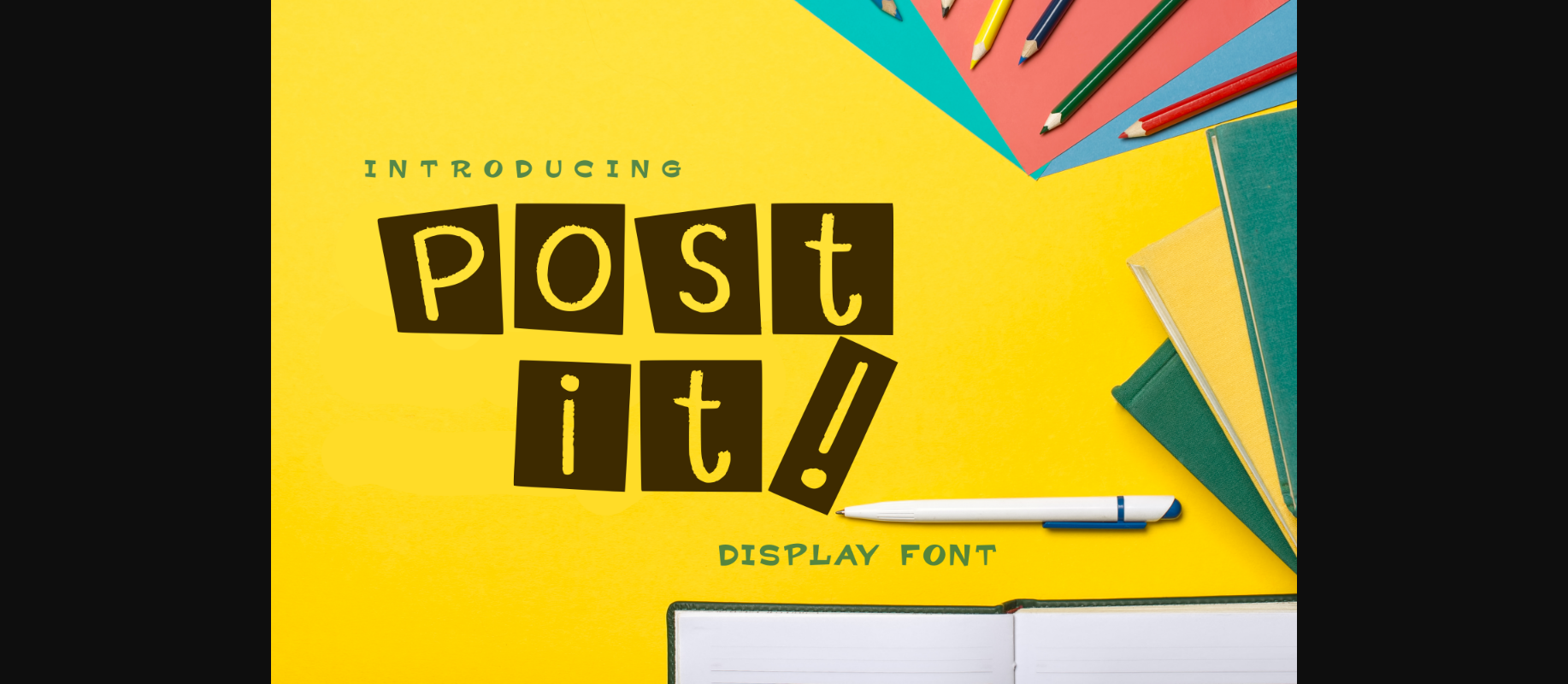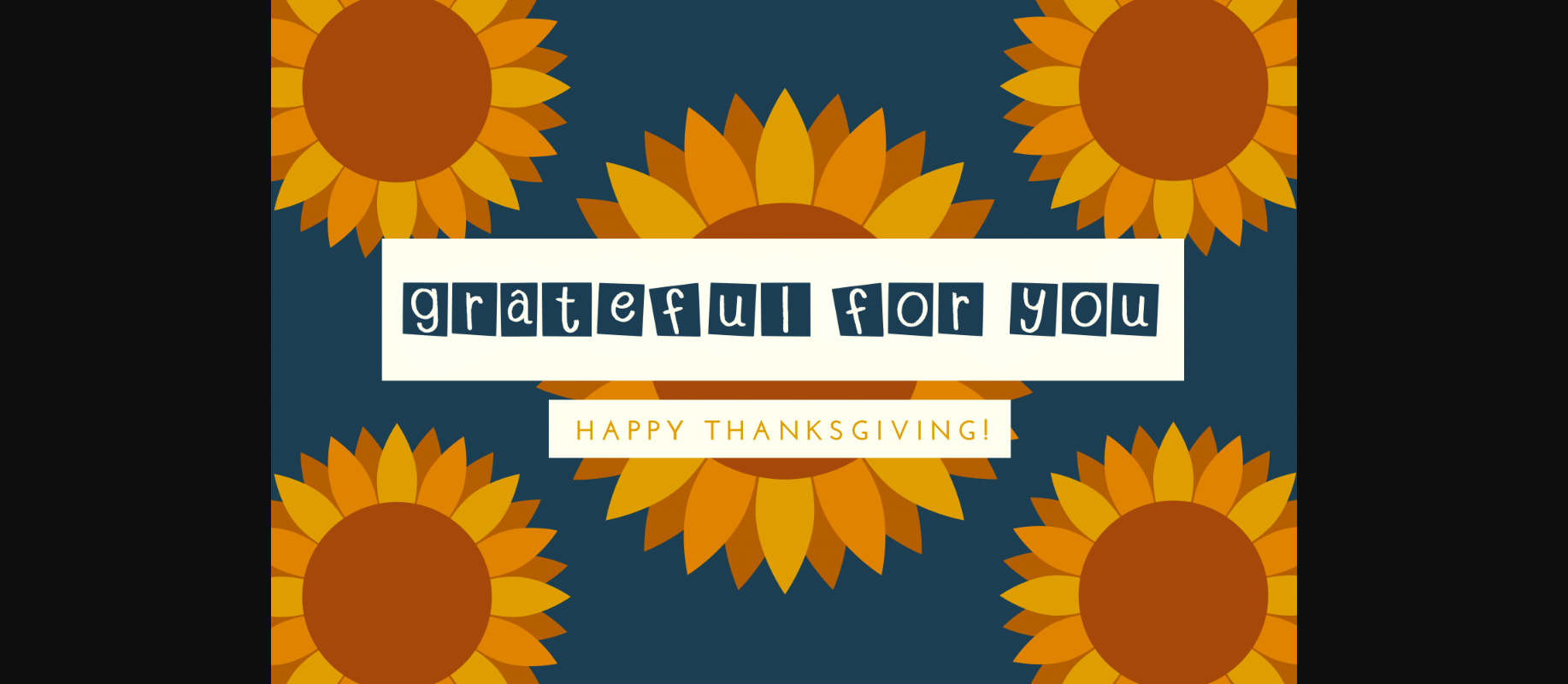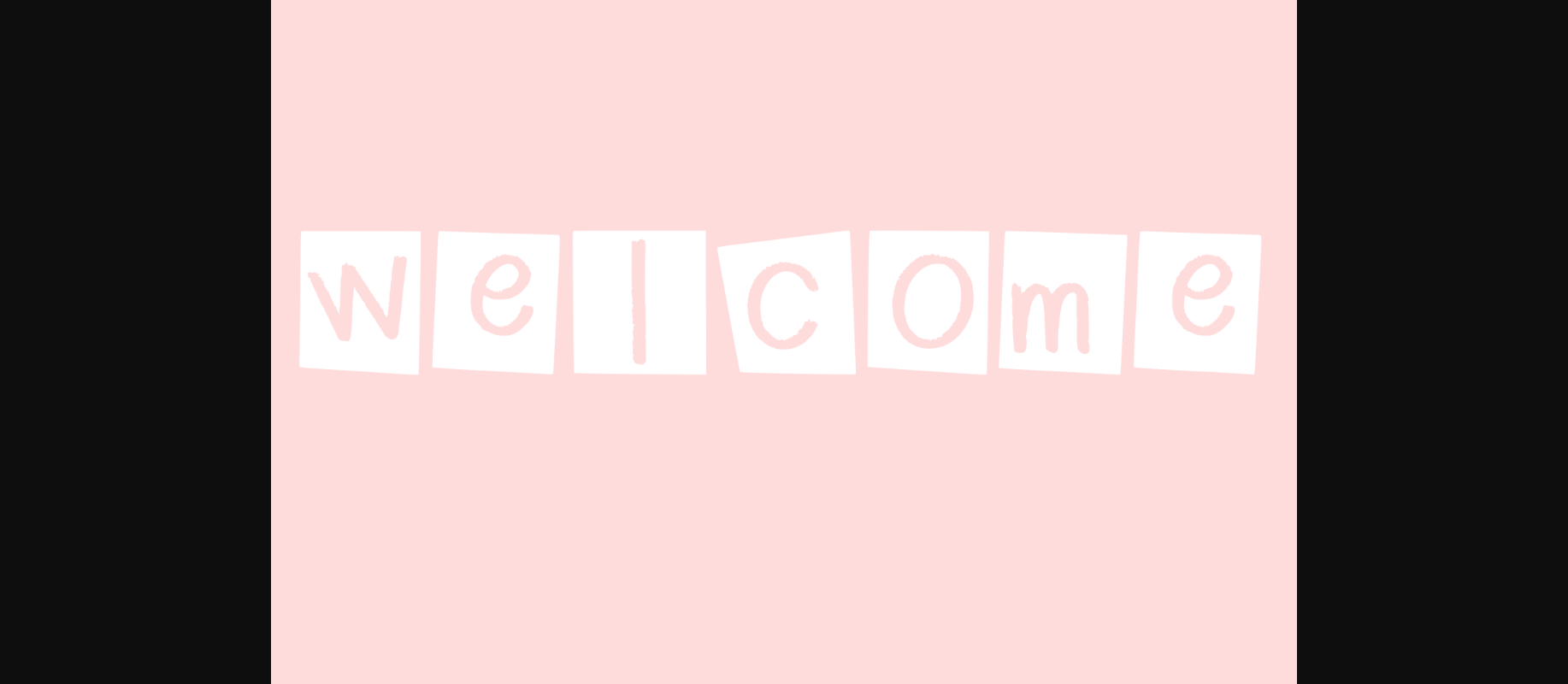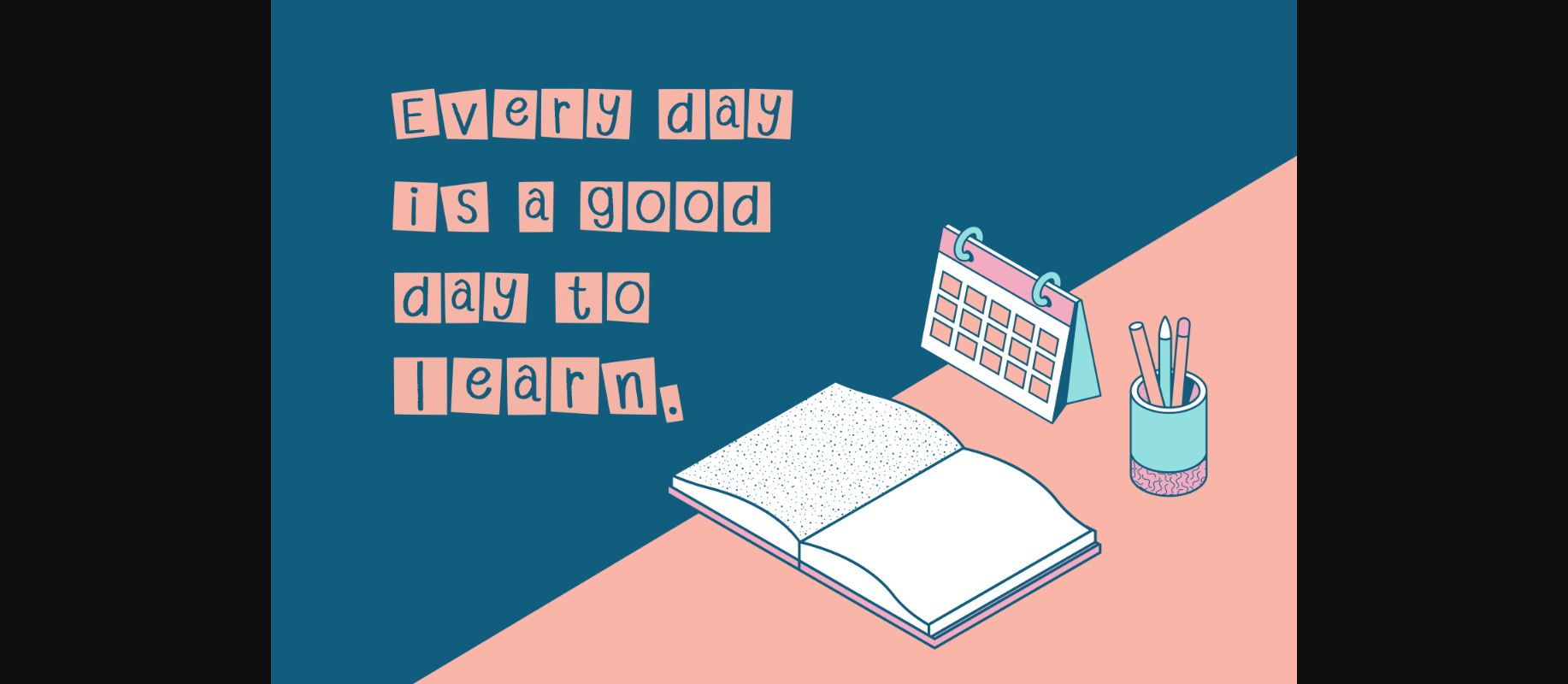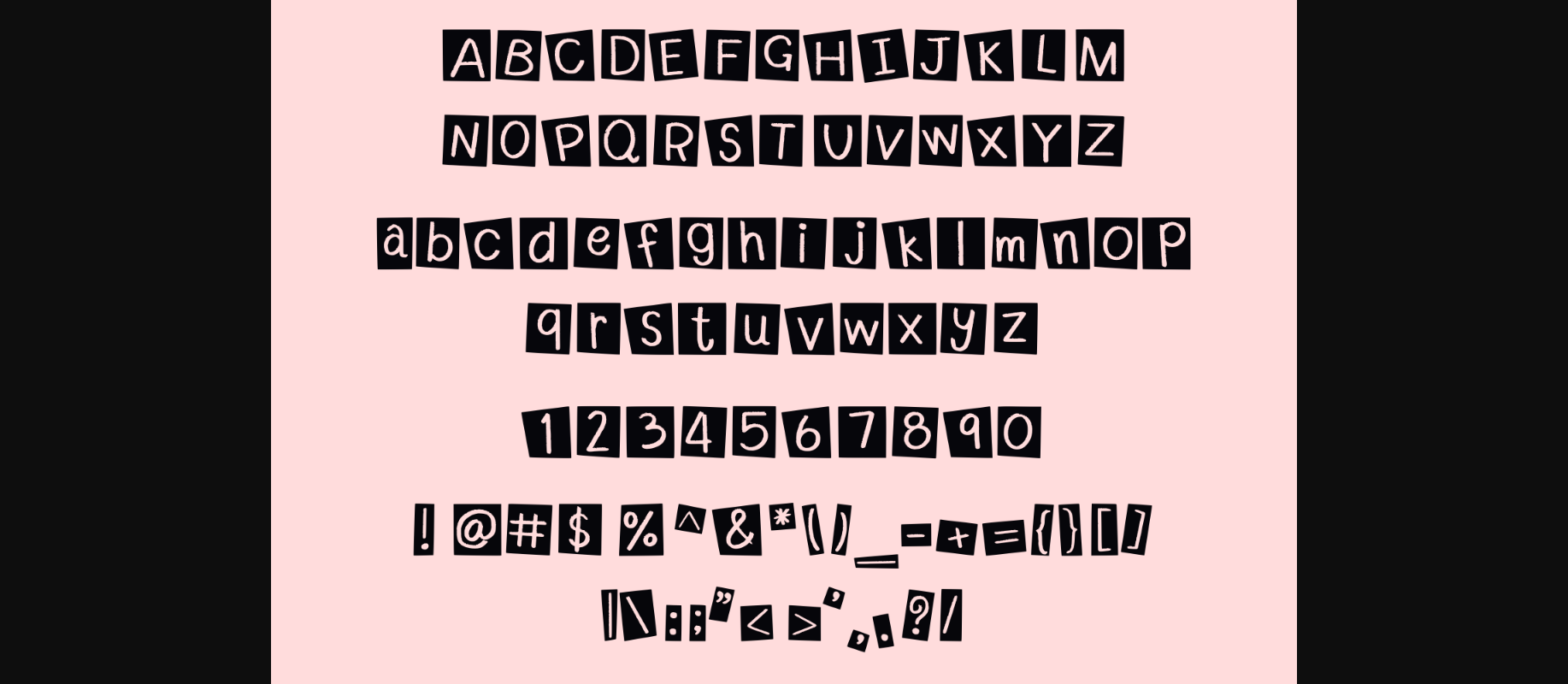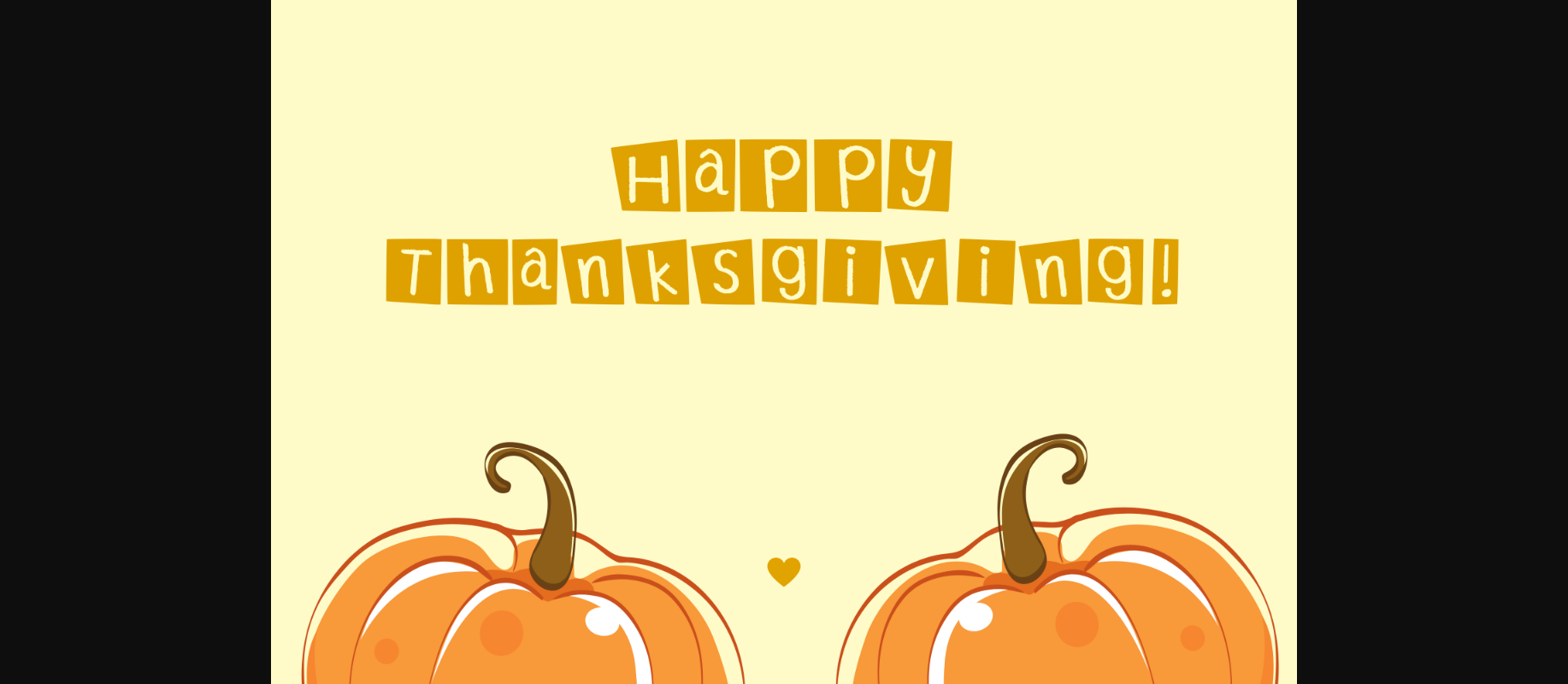
Post It Font
About Post It Font
Post it is a fancy and creative decorative font that will add a crafty eel to any item. It is perfect for card designs, stickers, or school presentations!